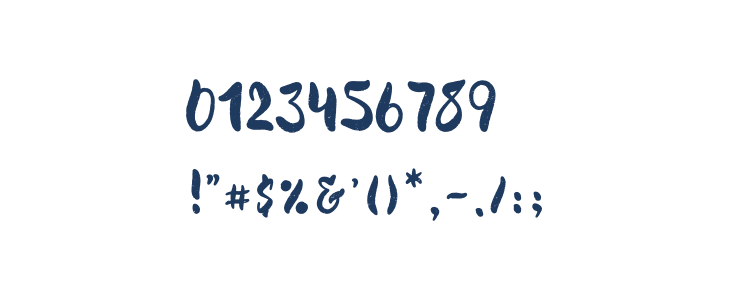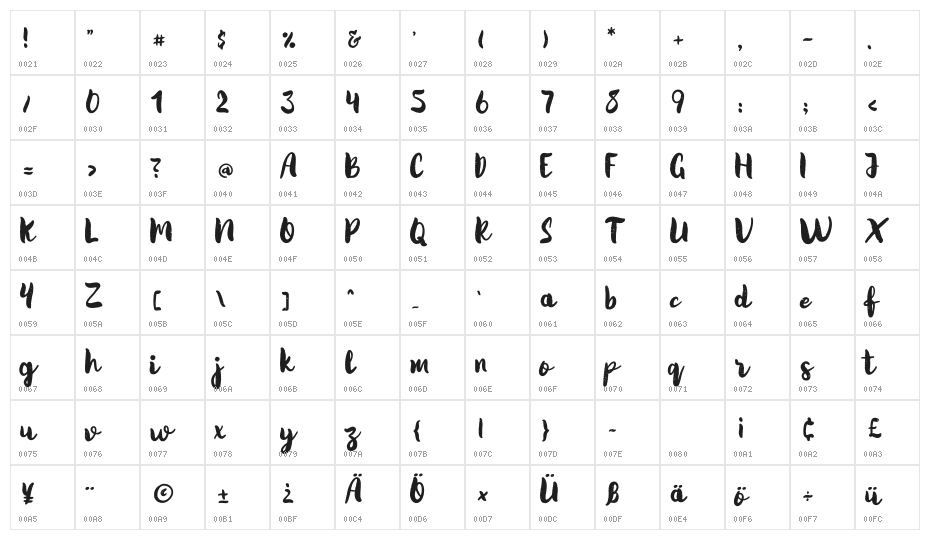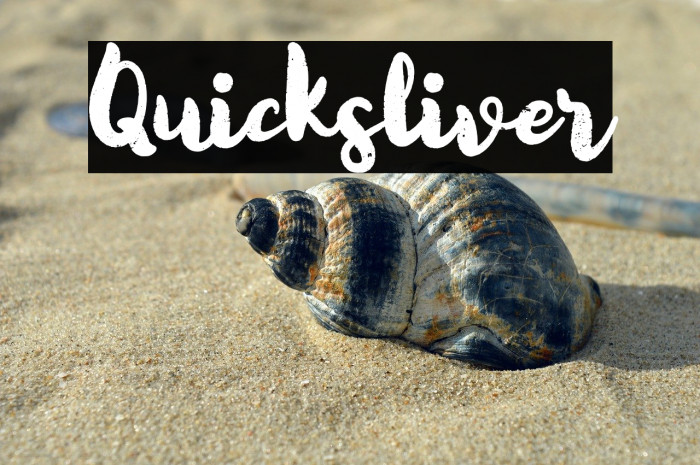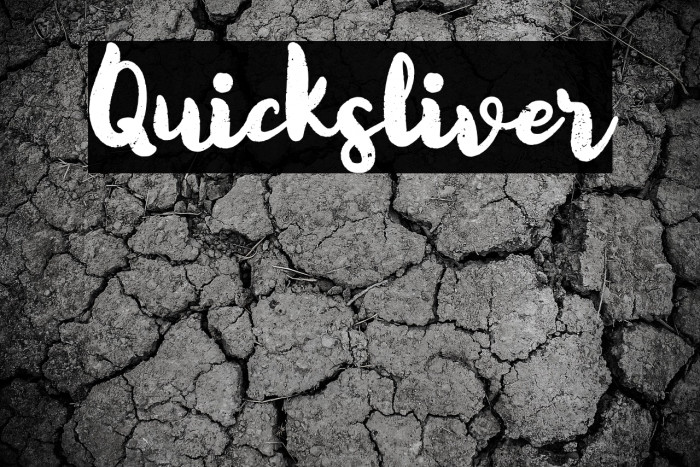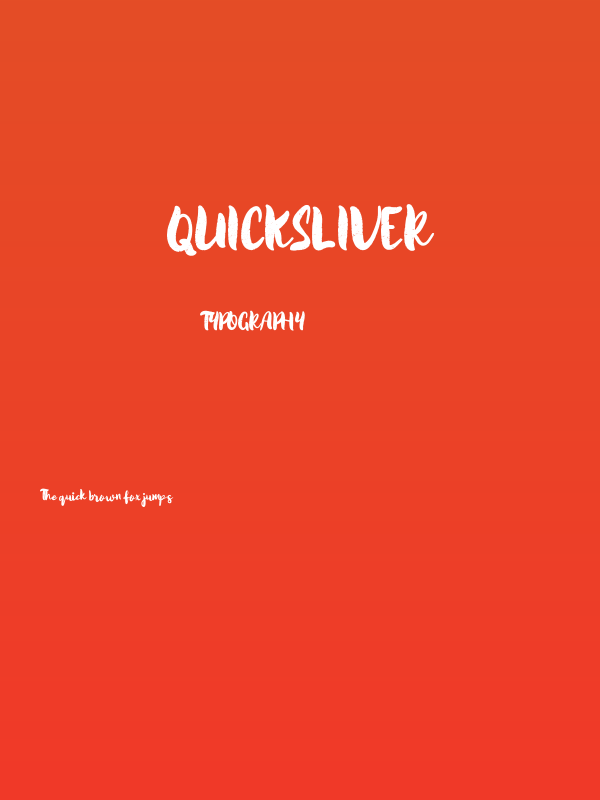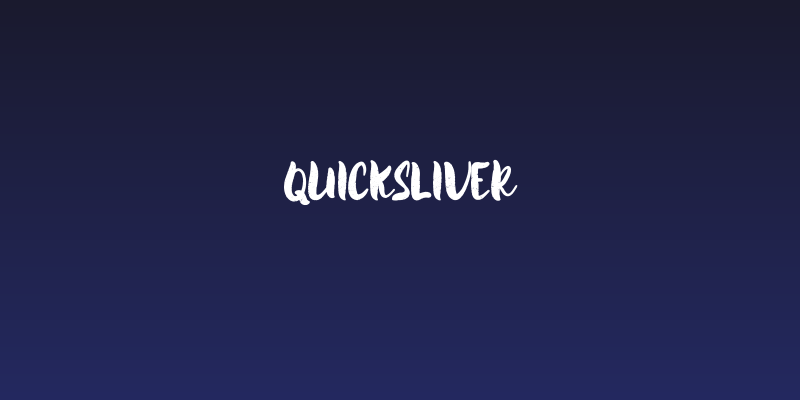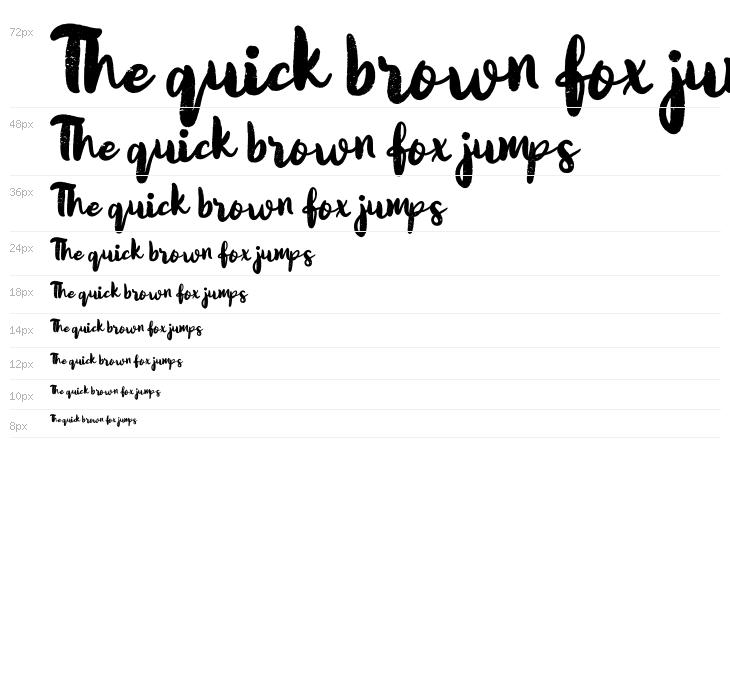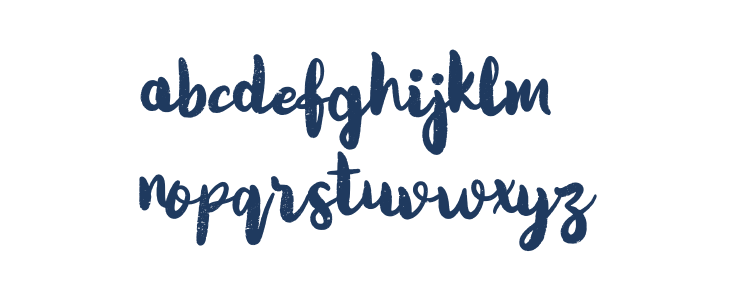
Quicksliver Font
Quicksliver Description
This font features a bold, brush-like script style with a textured appearance, giving it a hand-painted look. The letters are connected in a flowing manner, creating a sense of movement and dynamism. The uppercase letters are bold and prominent, while the lowercase letters maintain a consistent style with slightly more variation in stroke width. The numbers and special characters follow the same aesthetic, ensuring uniformity across all elements. This font is ideal for projects that require a personal, artistic touch.
| Use Case | Logos, Headlines, Posters |
| Proposed Projects | Ideal for branding, packaging, posters, and invitations where a personal, artistic touch is desired. |